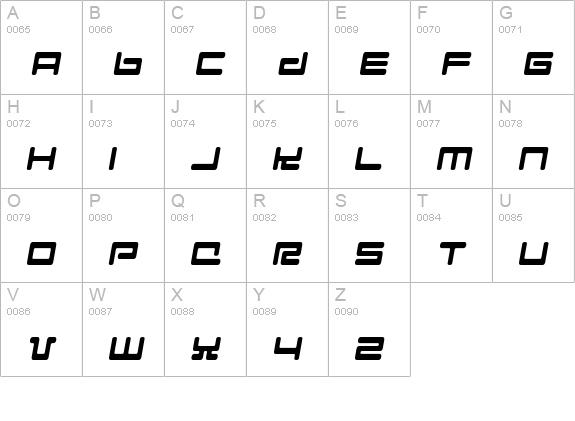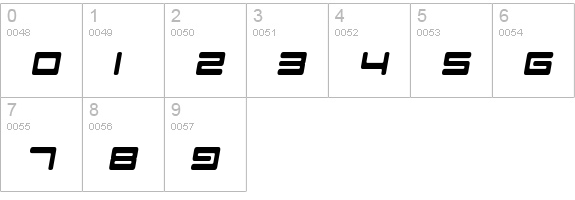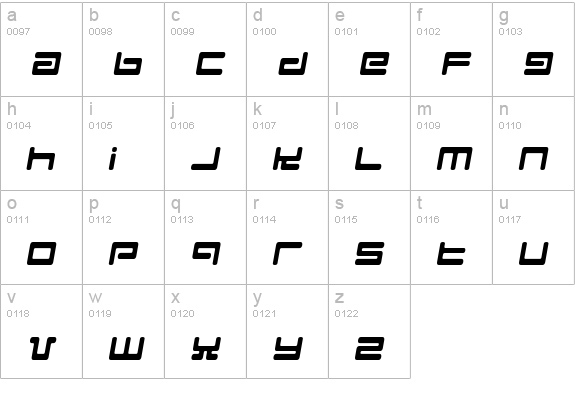
Hyperspeed Font Details
Introducing Hyperspeed Font - a sleek and modern typeface designed to bring a sense of speed and innovation to your projects. With its sharp lines and futuristic aesthetic, Hyperspeed Font is the perfect choice for designs that demand attention and energy. This unique font is now available for free download at FontsMarket.com, making it accessible to designers, creatives, and anyone looking to add a touch of excitement to their work. Whether you're creating a poster, logo, website, or any other design project, Hyperspeed Font will help you stand out from the crowd with its dynamic and bold appearance. Embrace the power of speed and style with Hyperspeed Font, and take your designs to the next level. Download it today and unleash your creativity like never before!